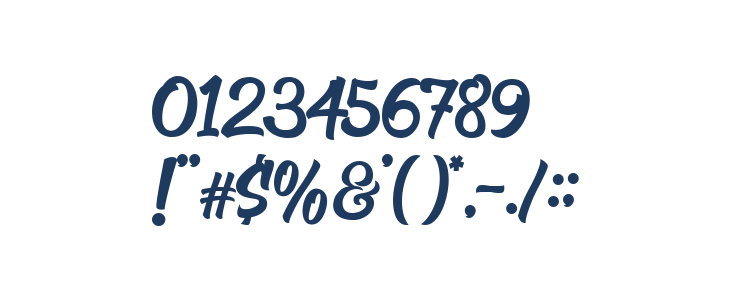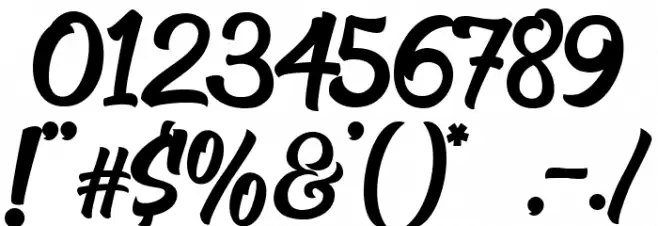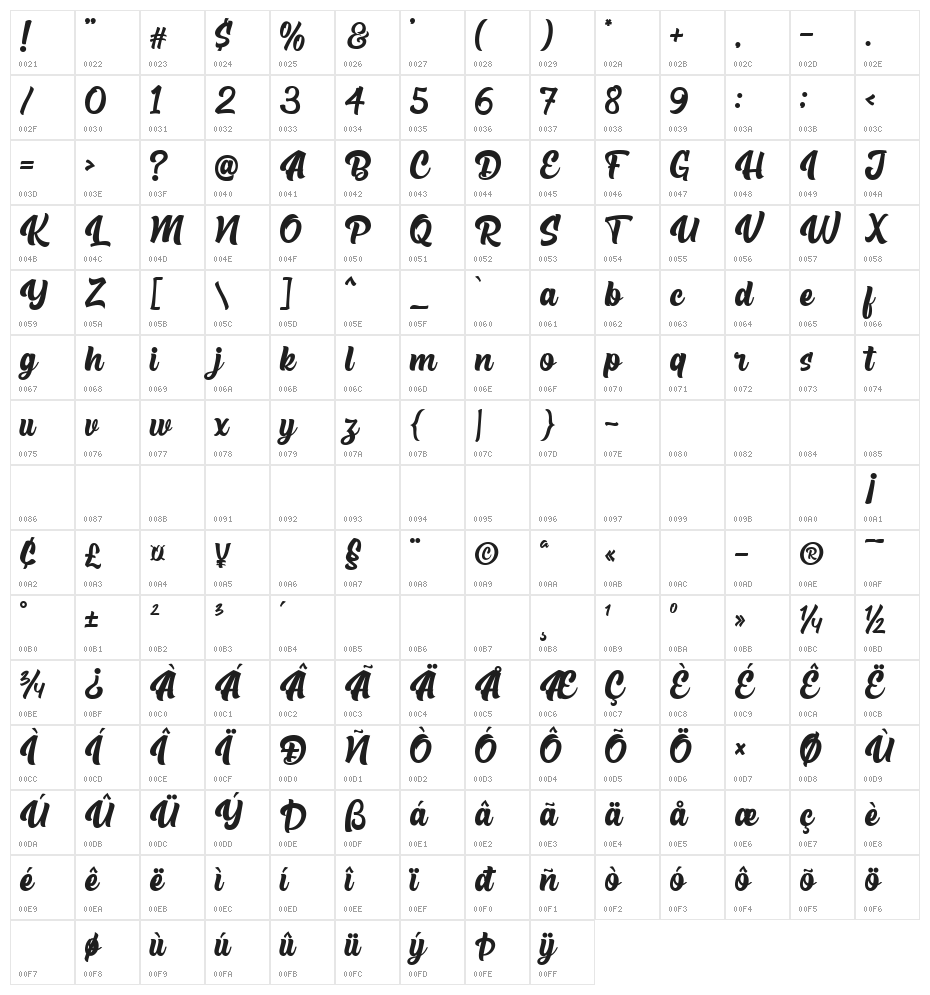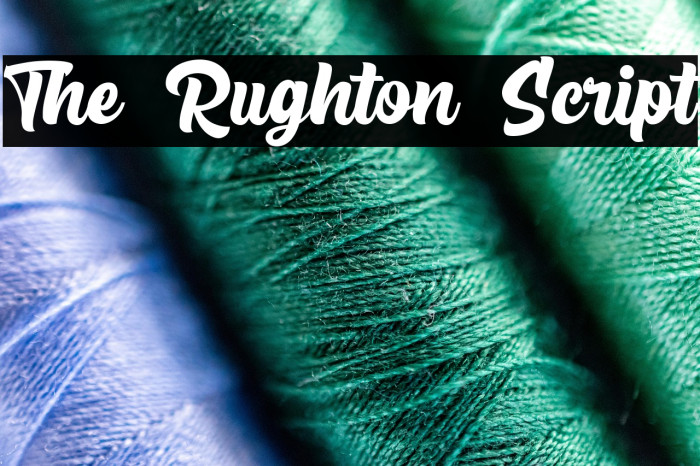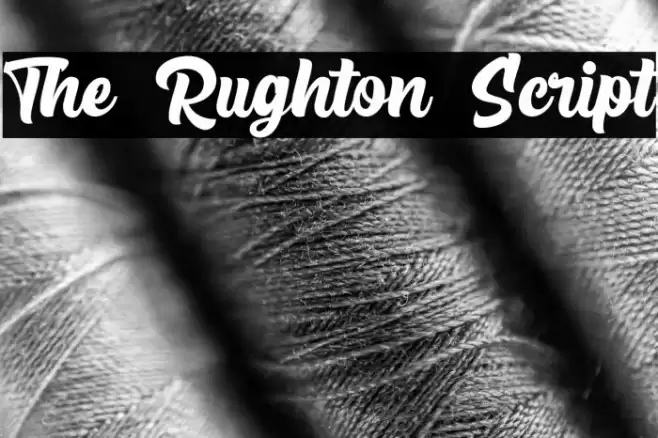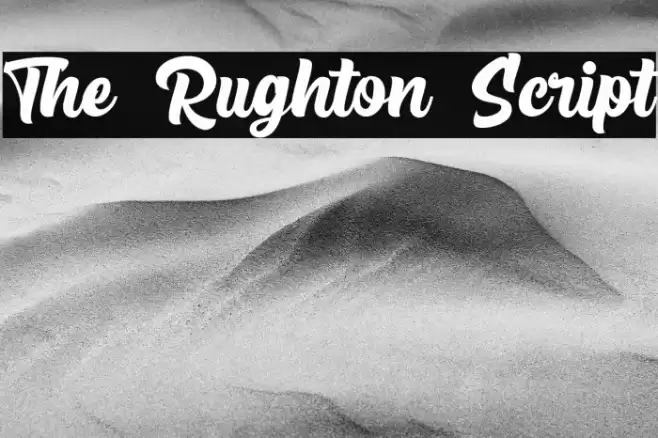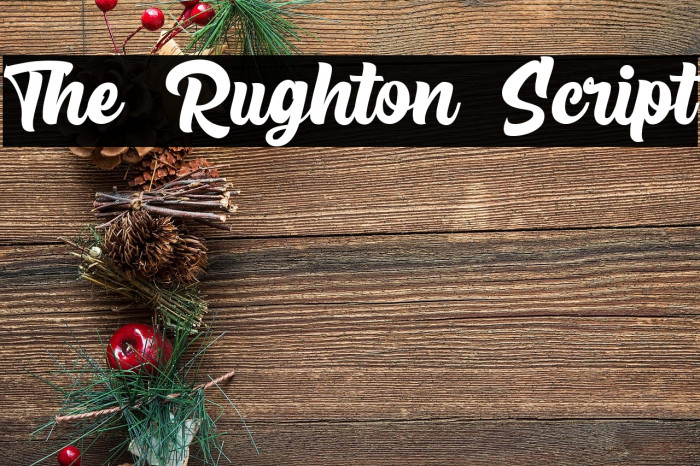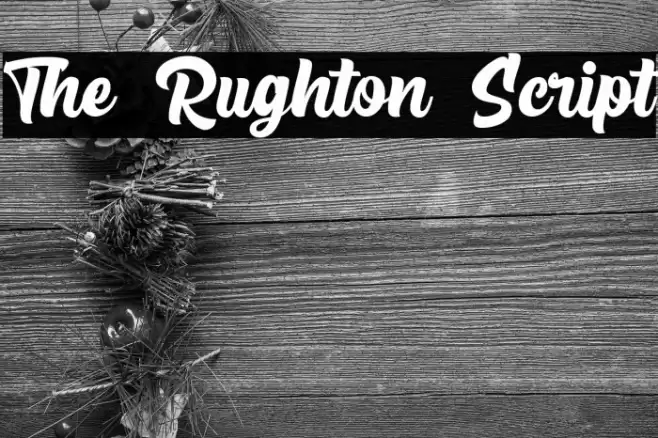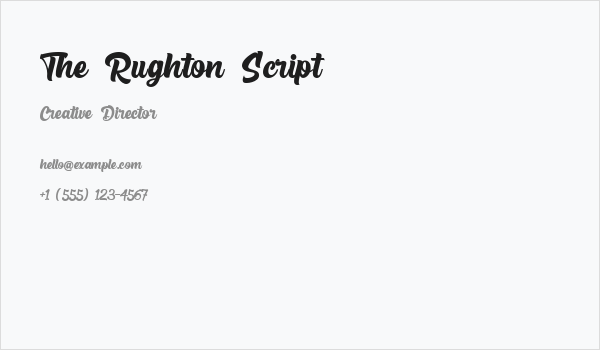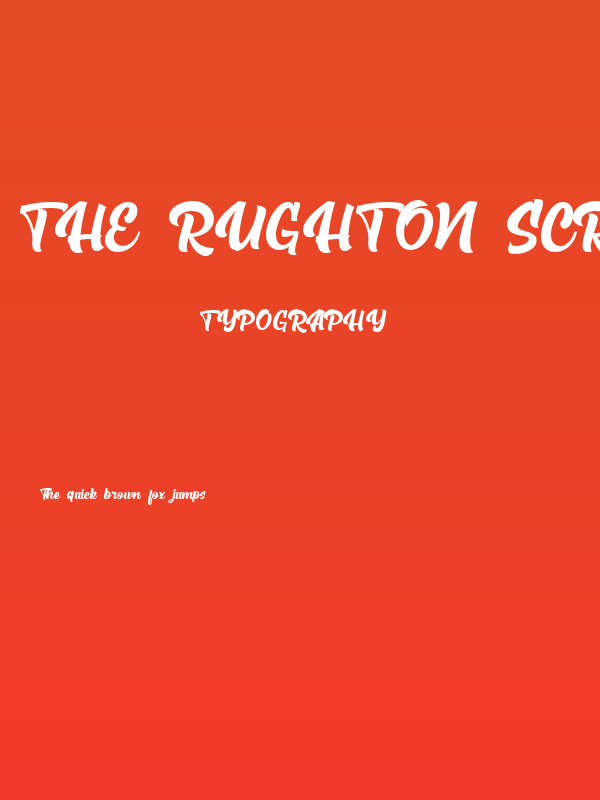
The Rughton Script Font
The Rughton Script Description
This script font features a bold and flowing style, characterized by its smooth, connected letters that mimic the fluidity of handwriting. The uppercase letters are elegantly curved, with a slight slant that adds a dynamic feel to the text. The lowercase letters maintain a consistent flow, enhancing readability while preserving the artistic flair. The numerals are equally stylized, maintaining the script's cohesive look. Special characters are thoughtfully integrated, ensuring versatility in various design contexts. This font exudes a sense of elegance and creativity, making it suitable for projects that require a personal touch.